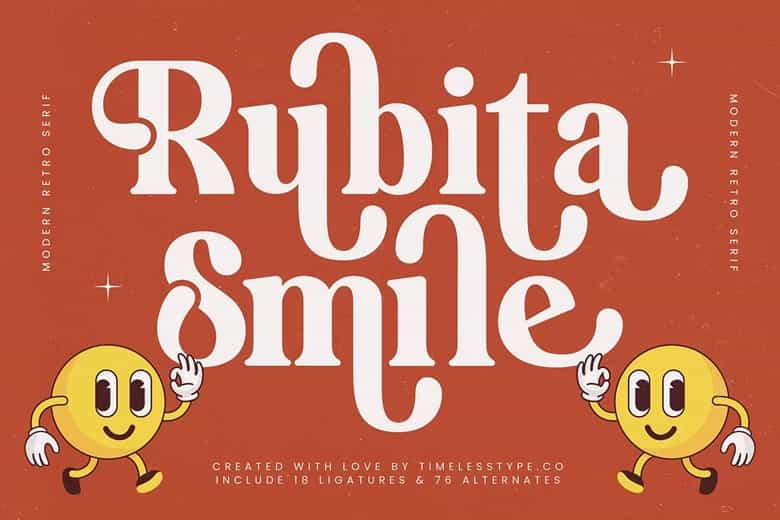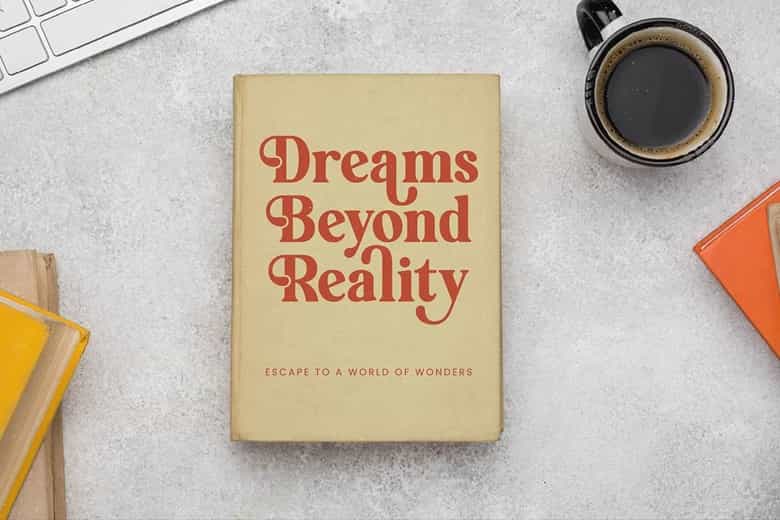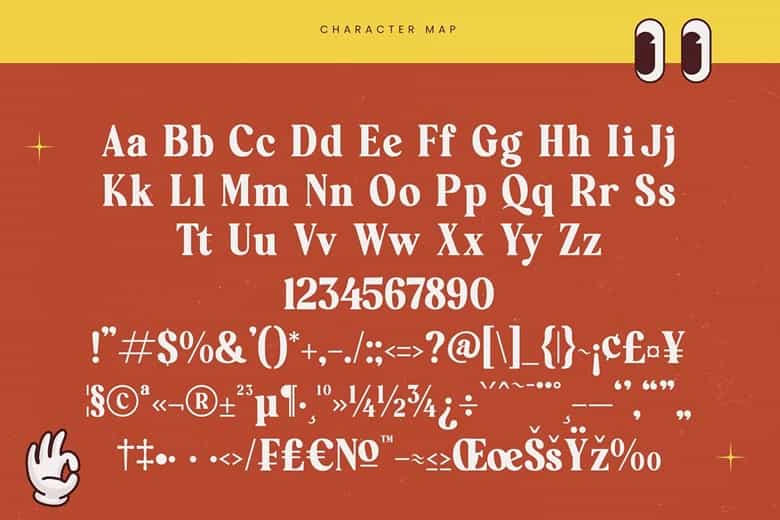
Discover Rubita Smile Font, part of the Serif Retro collection—a versatile and unique font perfect for adding a personal touch to your projects. Download it for free and enjoy crafting designs with style, from invitations to social media posts. This font is available exclusively for personal use, giving you the freedom to create without limits. Unlock your creativity with Rubita Smile Font today!
Rubita Smile is a new retro serif font, from Timelesstype.Co, It’s suitable for any projects such as: Logos, branding projects, homeware designs, product packaging, mugs, quotes, posters, shopping bags, t-shirts, book covers, name card, invitation cards, greeting cards, label, photography, watermark, special events and anything and everything you may have that needs the touch of a luxurious serif design.